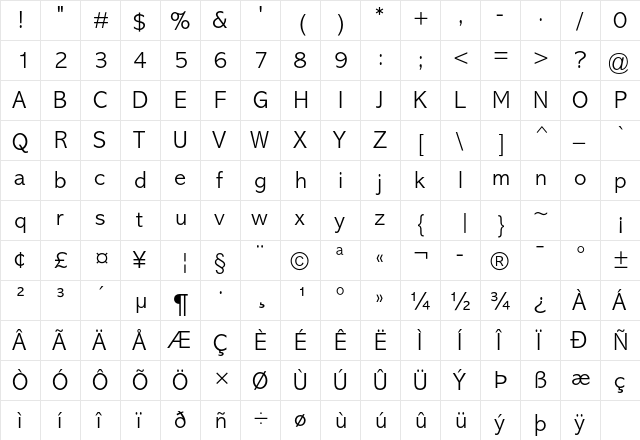
Abadi MT Std Light
| Foundry | Agfa Monotype Corporation |
Design Context for Abadi MT Std Typeface
Abadi MT Std offers clean, dependable letterforms without strong stylistic allegiance, making it a practical choice for designers who need flexibility. The delicate stroke weight brings airiness and refinement to layouts.